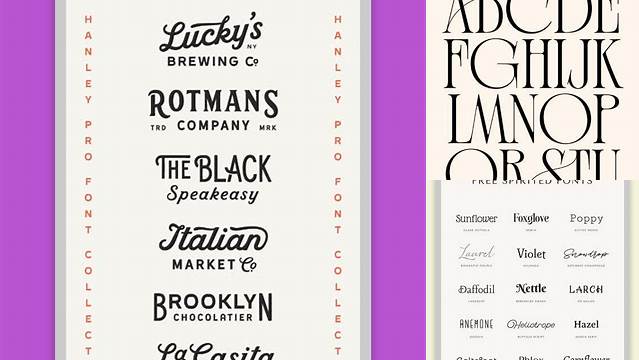
Free Website Fonts: Download & Design Guide
Hey everyone! Are you looking to spice up your website's look? One of the easiest ways to do that is by playing around with website fonts! And the best part? You can find tons of website fonts free download options out there, ready to give your site a fresh new vibe. In this article, we'll dive into everything you need to know about fonts for websites. We'll cover why fonts matter, where to find the best free fonts, and how to use them like a pro. Ready to get started, guys?
Why Website Fonts Matter
First things first, why should you even care about website fonts? Well, they're a much bigger deal than you might think! The font you choose can seriously impact how visitors perceive your site. Think of it like this: your font is the voice of your brand. It sets the tone and communicates your message to your audience. A well-chosen font can make your website look professional, trustworthy, and even more engaging. It can also make your content easier to read and understand, which is super important for keeping people on your page longer. On the flip side, a poorly chosen font can make your website look cluttered, unprofessional, and hard to read. That can drive visitors away faster than you can say "typography." So, choosing the right fonts is a must. It's about more than just aesthetics; it's about user experience and branding. Using a font for your website helps to establish your brand identity, making your website more memorable. When you select a font, make sure it is consistent with your brand's personality and the message you want to convey. Moreover, website fonts impact readability. A legible font improves user experience, making it easier for visitors to read and engage with your content. This also means that the font helps improve SEO as well. Good readability also means the information is easily accessible and therefore the website will rank higher.
When you are selecting a font, always consider the following:
- Readability: Always ensure your font is easy to read. Prioritize fonts with clear letterforms and adequate spacing, especially for body text.
- Brand Consistency: Select fonts that complement your brand's personality and message.
- User Experience: Optimize for a pleasant reading experience by using fonts with appropriate size, weight, and contrast.
- Website Performance: Consider the font's file size to maintain fast website loading times.
- Accessibility: Ensure your font is accessible to all users, including those with visual impairments.
- Mobile-Friendliness: Make certain your font displays well on all devices, particularly mobile.
How to Use Website Fonts Like a Pro
Okay, you've found some awesome fonts through website fonts free download. Now, how do you use them effectively on your website? Here are some tips and tricks to help you out:
- Choose a limited number of fonts: Don't go overboard! Using too many fonts can make your website look cluttered and unprofessional. A good rule of thumb is to stick to two or three fonts maximum. Choose one for headings, one for body text, and maybe a decorative font for accents.
- Pair fonts carefully: Font pairing is an art! You want to choose fonts that complement each other, not clash. Consider the style of your fonts and think about what works well together. You can use Google Fonts to browse through font pairings.
- Use font weights and styles: Don't be afraid to use different font weights (e.g., bold, regular, light) and styles (e.g., italic) to add visual interest and hierarchy to your content. This helps to emphasize certain information and make your website more readable. Using font weights and styles correctly will improve the flow and readability.
Conclusion: Elevate Your Website with Free Fonts
So, there you have it, guys! Everything you need to know about website fonts free download and how to use them to create a stunning website. Remember, choosing the right font is a crucial part of web design. It's about more than just aesthetics; it's about creating a positive user experience and effectively communicating your brand's message. By following the tips in this article, you can find the perfect fonts to give your website a professional and engaging look. Happy designing!